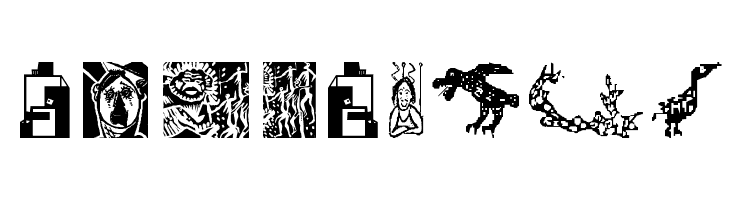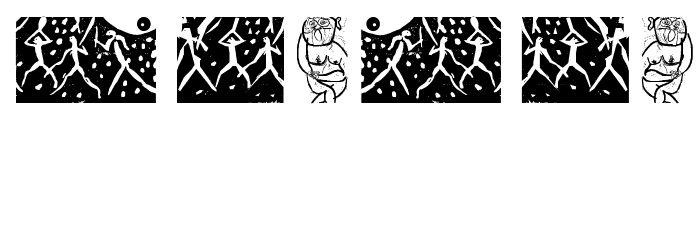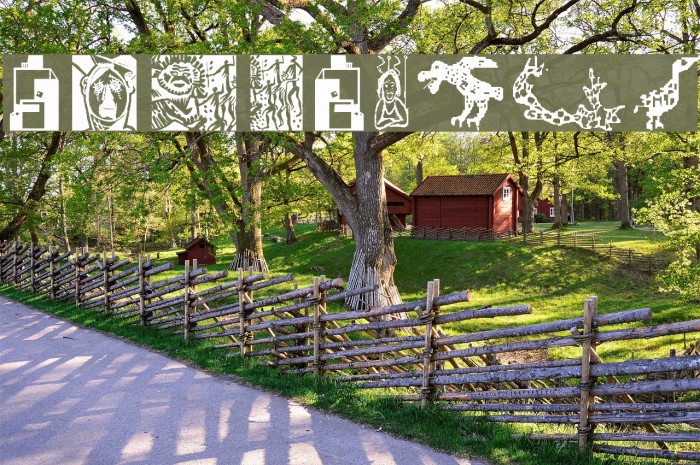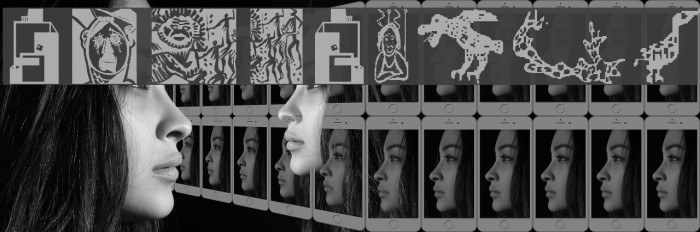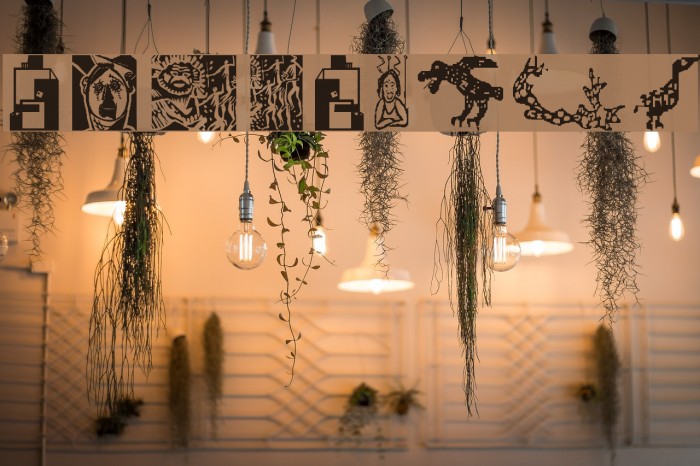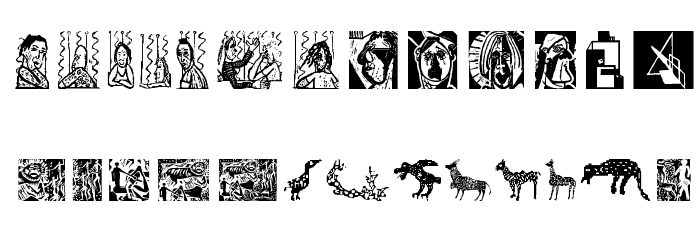
LinolCuts Font
LinolCuts Description
This set of characters is not a traditional font but rather a collection of intricate linocut-style illustrations. Each character is represented by a unique, detailed image, often depicting scenes or figures with bold, contrasting lines typical of linocut art. The style is highly decorative and artistic, with each piece resembling a small artwork rather than a letter or number. The images include a variety of subjects, from human figures to animals and abstract designs, all rendered in a monochromatic palette that emphasizes the texture and depth of the cuts.
A collection of linocut-style illustrations, each character is a unique artwork from Uncategorized fonts.
- Proposed Projects: This collection is ideal for artistic projects, such as creating unique posters, art prints, or book covers that require a distinctive and handcrafted aesthetic.
- Overall Style: Artistic, Decorative
- Use Case: Art prints, Posters, Book covers